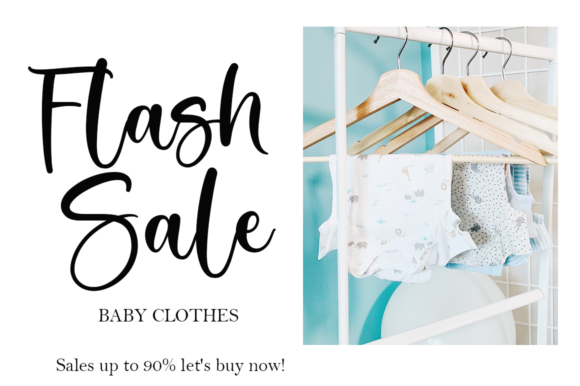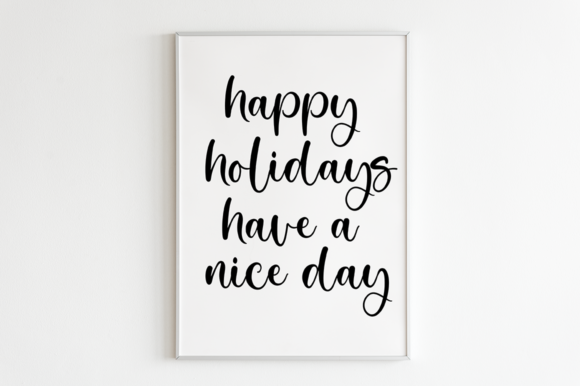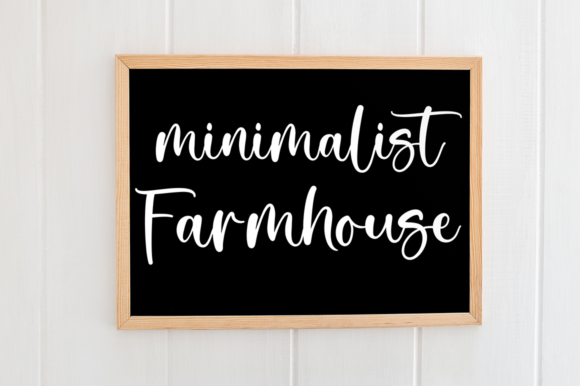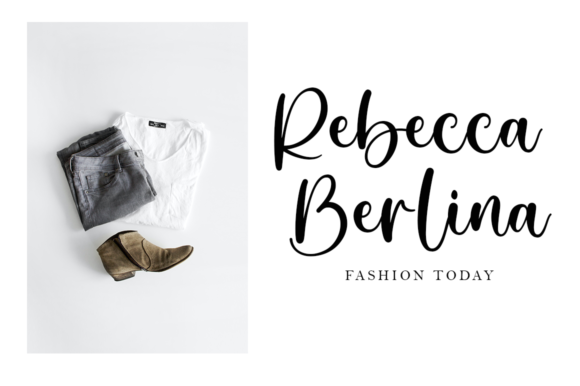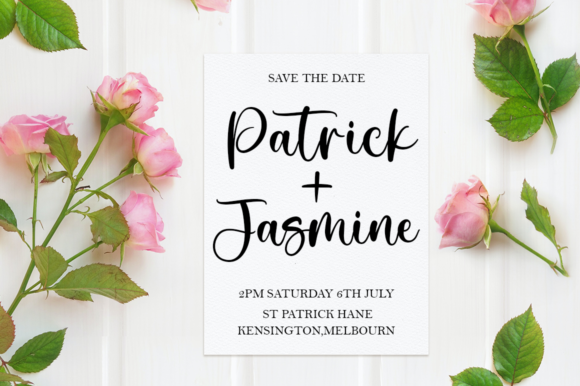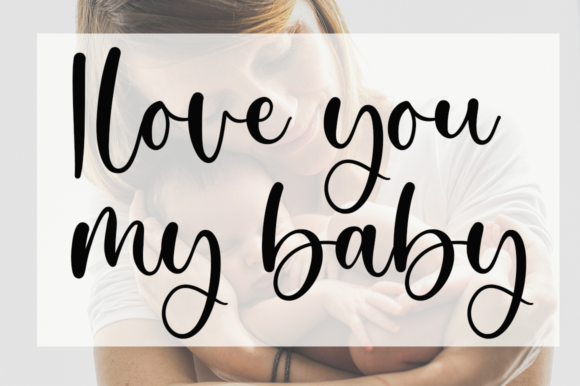
Introduction to Justine Font
Have you ever found yourself staring at a blank page, desperately searching for the perfect font to bring your creative project to life? You know, that moment when everything seems to be missing that special touch, and you can’t help but feel like you’re about to settle for anything less than perfection? That’s exactly where the Justine Font comes in – a beautiful and delicate script font that exudes elegance and class.
Whether you’re working on a high-quality design resource or need a font that will make your design stand out, the Justine Font is the perfect addition to your toolkit. With its PUA encoding, accessing all the amazing glyphs and ligatures is a breeze, allowing you to create stunning designs with ease.
Key Features of Justine Font
- High-quality design resource suitable for various creative projects.
- Comes with a transparent background, allowing for easy integration into designs.
- Features a unique, elegant design style that adds a touch of sophistication to any project.
- Includes a range of font sizes and resolutions to cater to various design requirements.
- Designed with precision and care, ensuring a high-quality output in both digital and print formats.
Honest Review: Justine Font
As a designer, I’m always on the lookout for high-quality design resources that can elevate my creative projects. Recently, I had the chance to try out the Justine Font, and I’m excited to share my honest review with you.
- Unique and elegant design: Justine Font has a beautiful, elegant design that’s perfect for creating a sophisticated look in your creative projects.
- High-quality vectors: The font is available in high-quality vector format, making it easy to scale up or down without losing any detail.
- Transparent background: The font has a transparent background, which can be a bit tricky to work with if you’re not familiar with design software.
- Limited character set: Justine Font only includes a limited character set, which may not be suitable for projects that require a wide range of characters.
Overall, I’m impressed with the Justine Font’s design and quality. While it has some limitations, it’s a great addition to any designer’s toolkit. If you’re looking for a high-quality font for your creative project, I’d definitely recommend giving it a try.
How to Use Justine Font
Justine Font is a versatile, high-quality font perfect for a wide range of creative projects. With its transparent background and clean design, it’s an ideal choice for designers looking to add a touch of elegance to their work.
To get the most out of Justine Font, be sure to experiment with different font sizes, colors, and combinations. You can also use the font in conjunction with other design elements to create a cohesive and visually appealing design.
As a free download, Justine Font is an excellent addition to any designer’s toolkit. With its high-quality design and transparent background, it’s sure to elevate your creative projects to the next level.